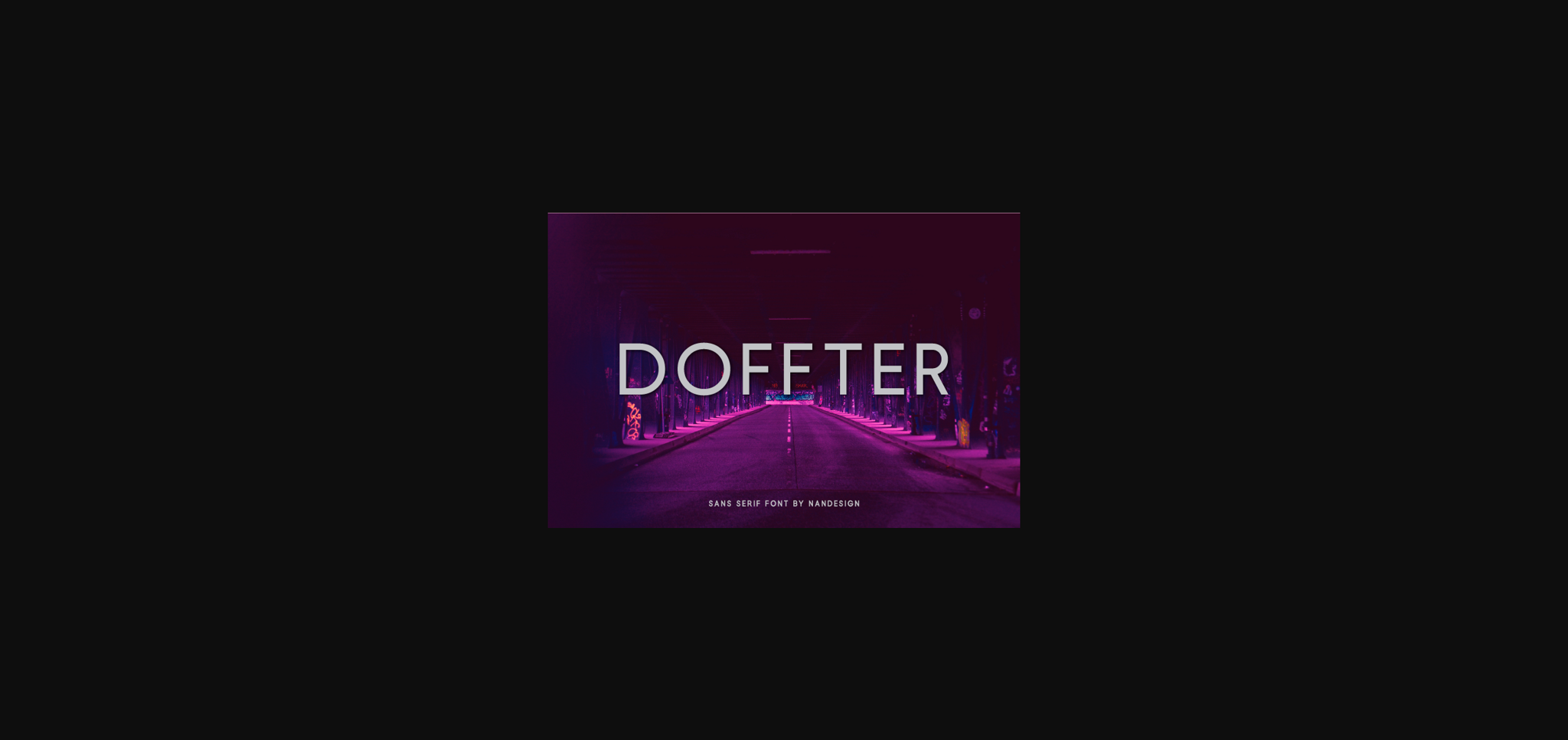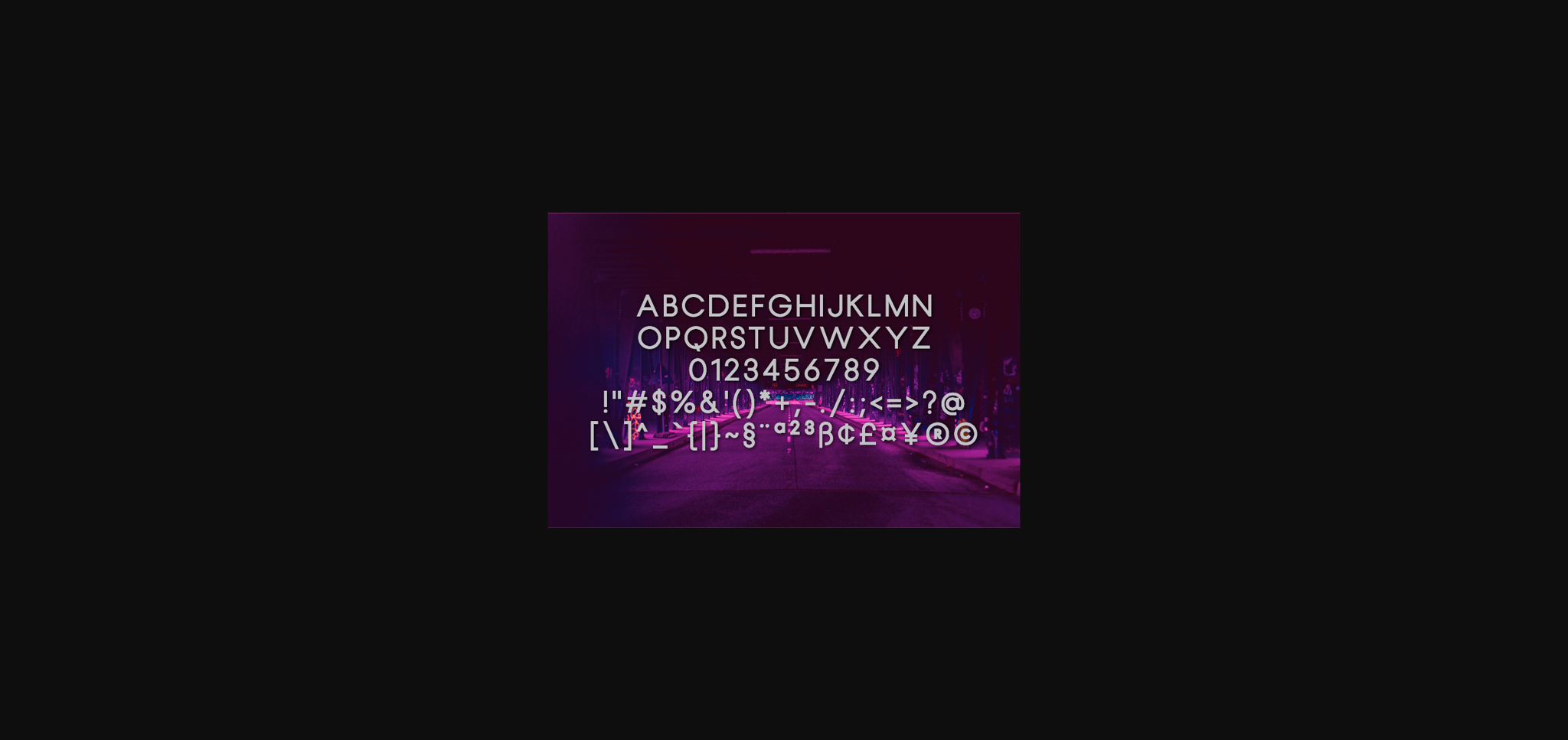
About Doffter Font
Doffter is a stunning sans serif font, designed to complement every project you’re currently working on.
It has a clean, thin and smooth vibe and it will be a hit for any design that you want to add it to.